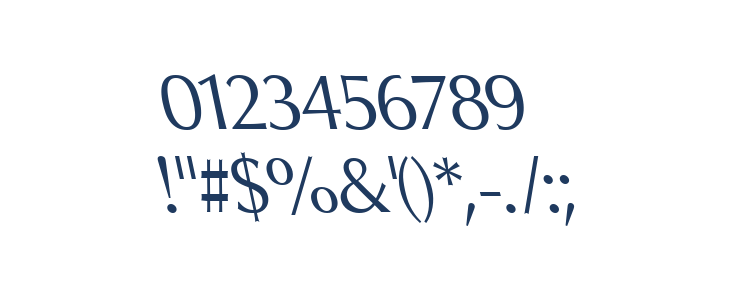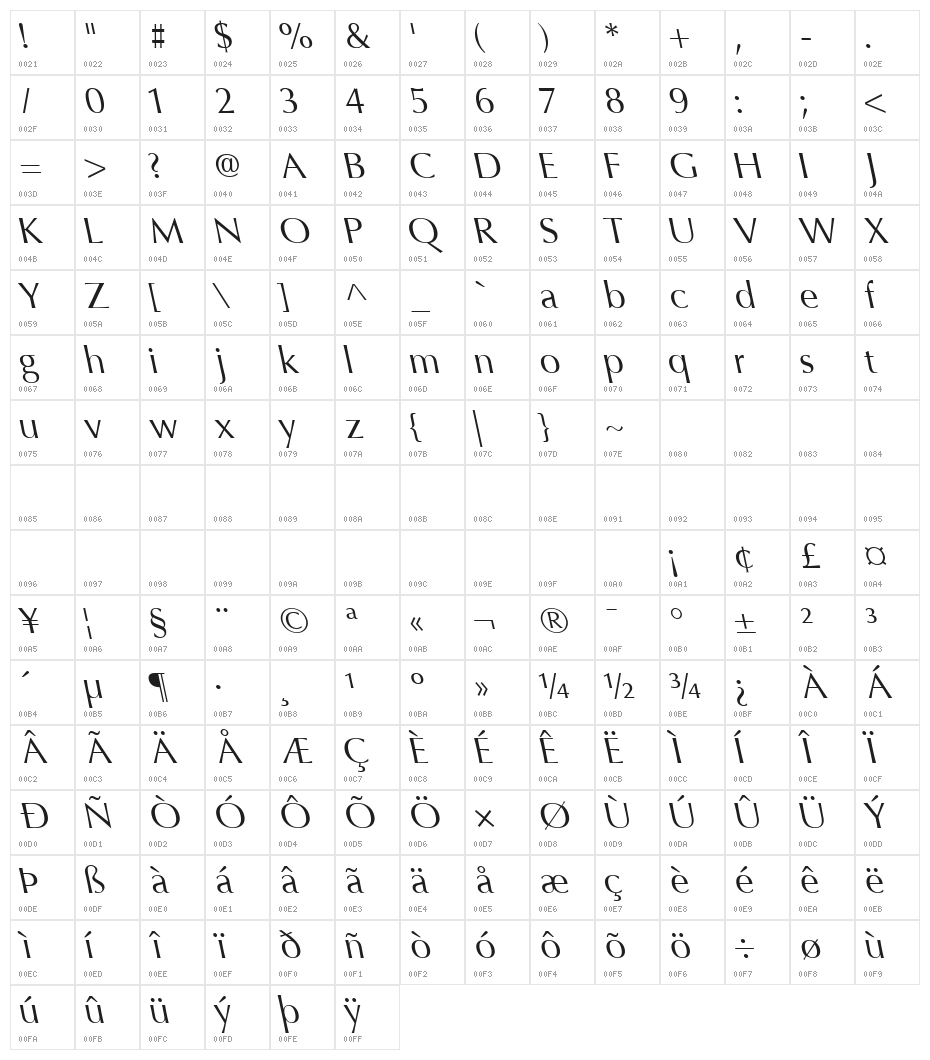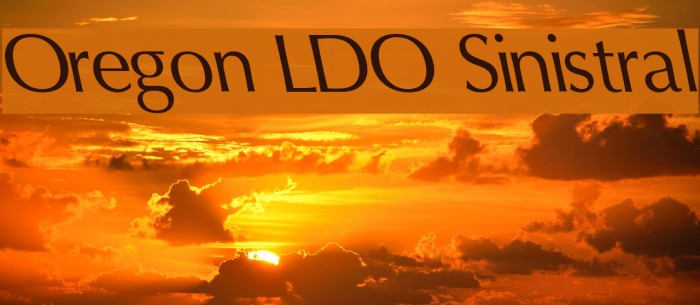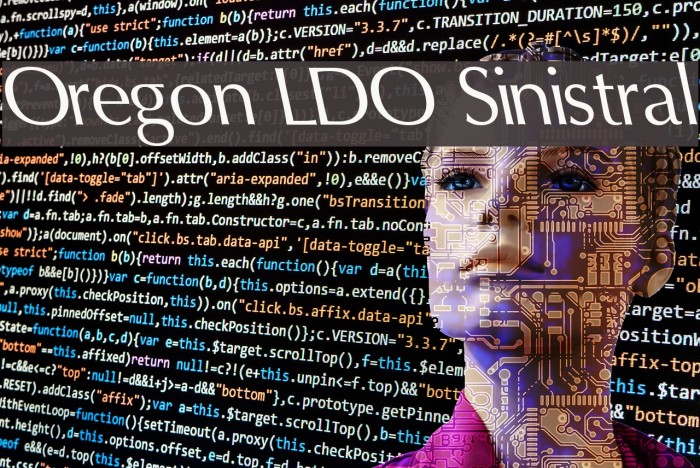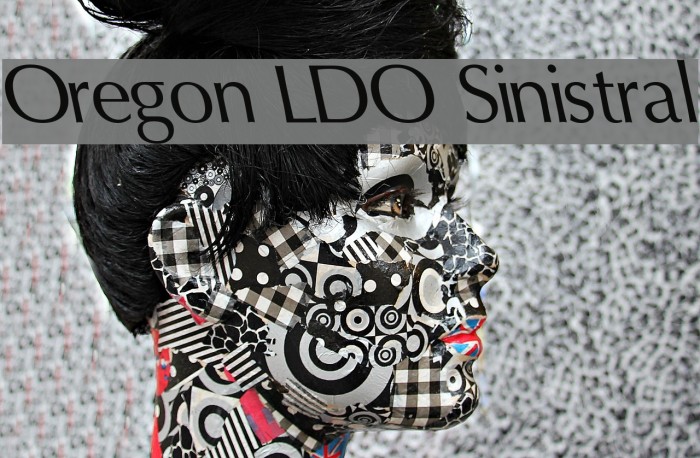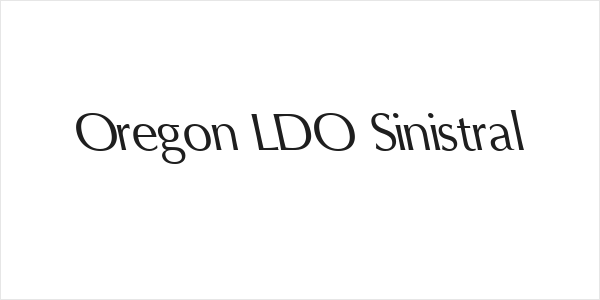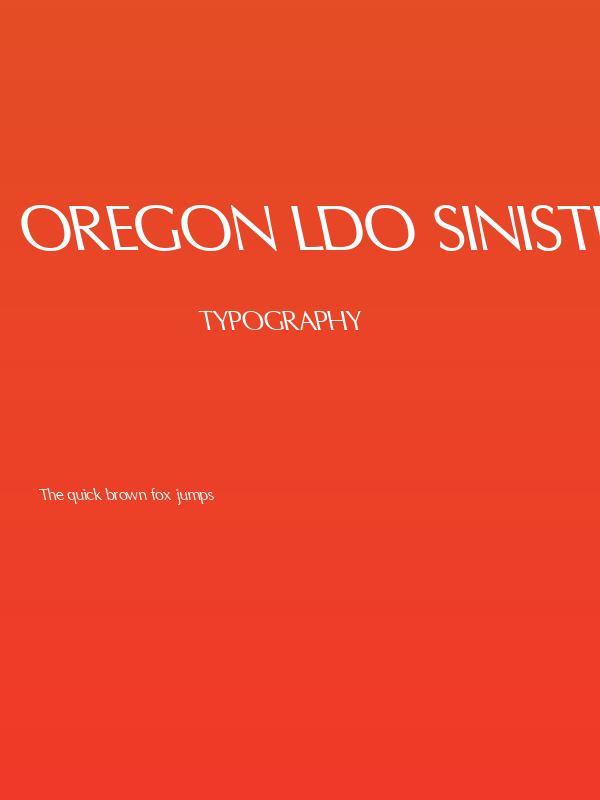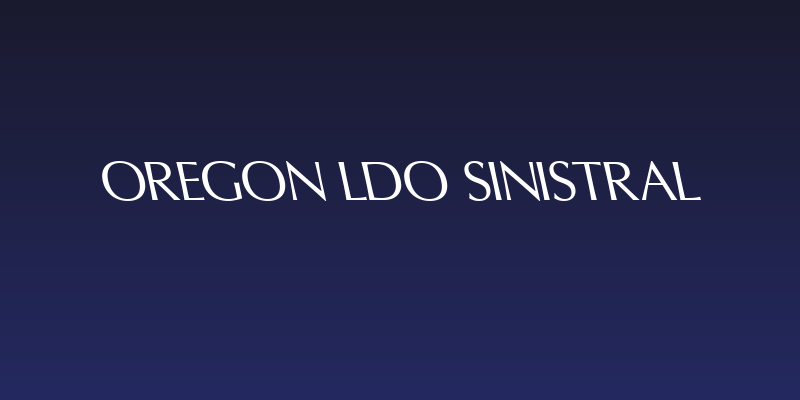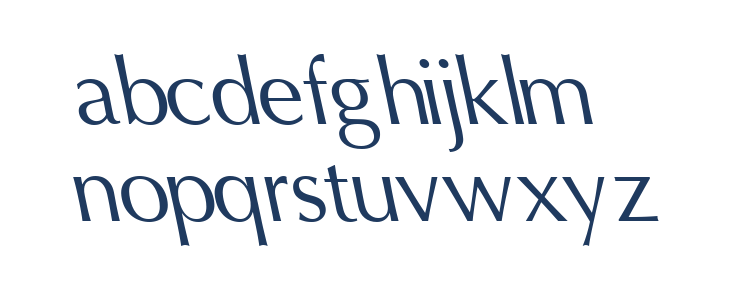
Oregon LDO Sinistral Font
Oregon LDO Sinistral Description
This font features a modern and elegant design with a slight slant, giving it a dynamic and sophisticated appearance. The characters are clean and well-defined, with a subtle contrast in stroke thickness that adds to its readability. The uppercase letters are tall and commanding, while the lowercase letters maintain a consistent flow, enhancing the overall aesthetic. The numerals are distinct and balanced, making them easy to read. Special characters are thoughtfully designed, maintaining the font's cohesive style. This font is versatile, suitable for both digital and print media.